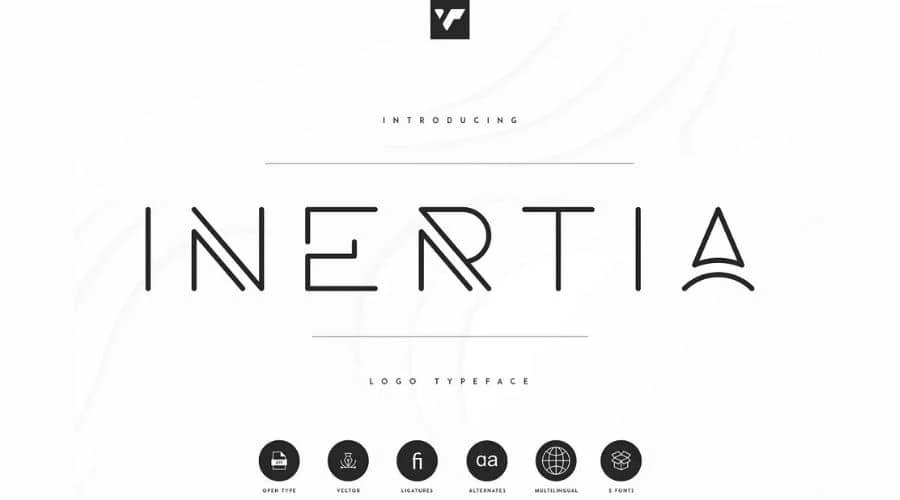
Inertia Font
Inertia font is a futuristic logo sans-serif typeface featuring alternative glyphs, ligatures, 5 weights, and language support. It’s a highly adaptable typeface that performs well in both big and small sizes. Inertia is ideal for branding initiatives, homeware designs, product packaging, magazine headlines, or as an elegant text overlay to any backdrop picture.
Inertia is a modern and appealing font. It may be found in a multitude of locations, including packaging, branding, clothes, and slogans. It is acceptable to use it on your website or in animations that make use of titling. Some designers have started to apply this font in portfolio presentations, artwork, and instructional films, among other places.